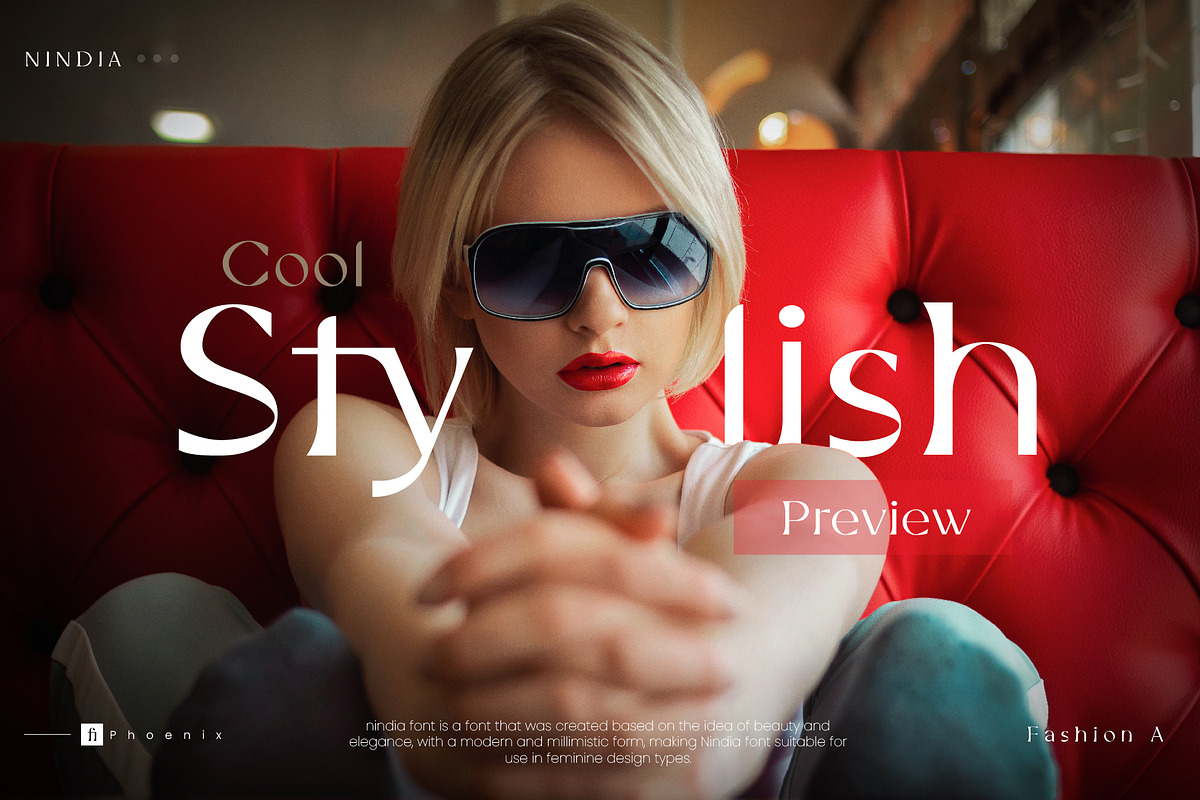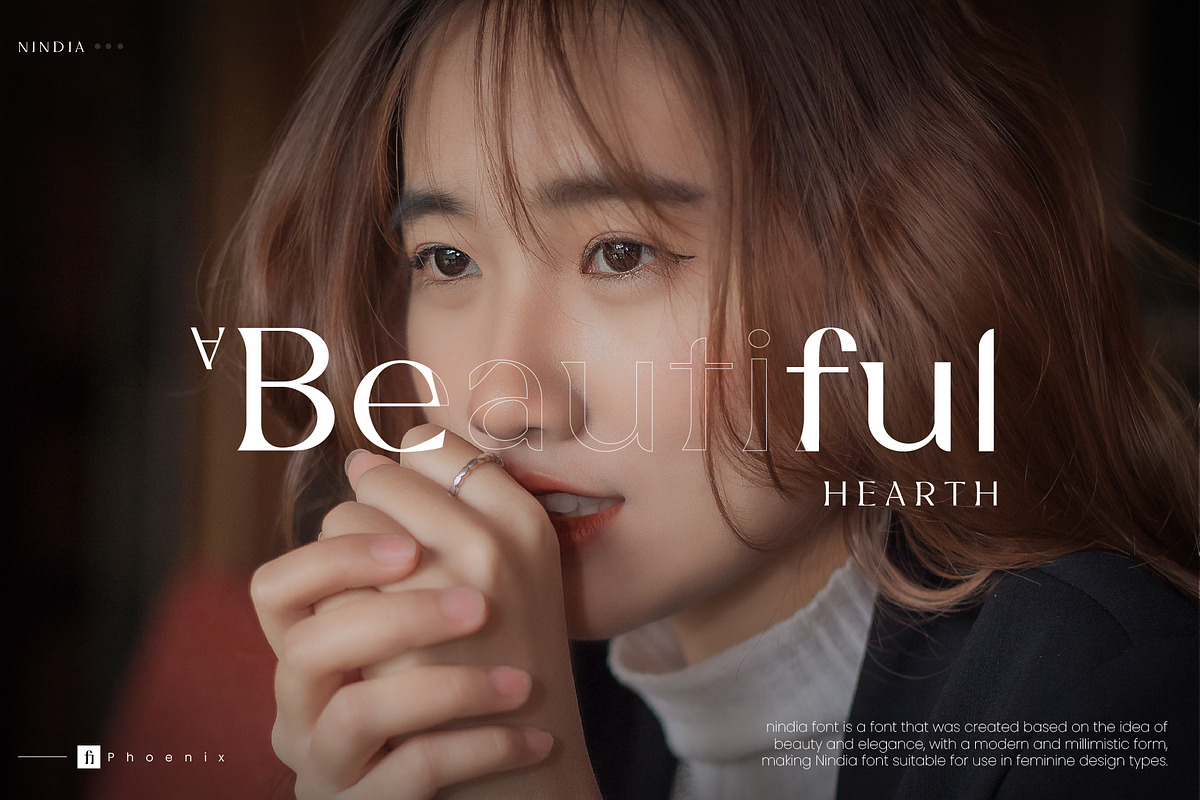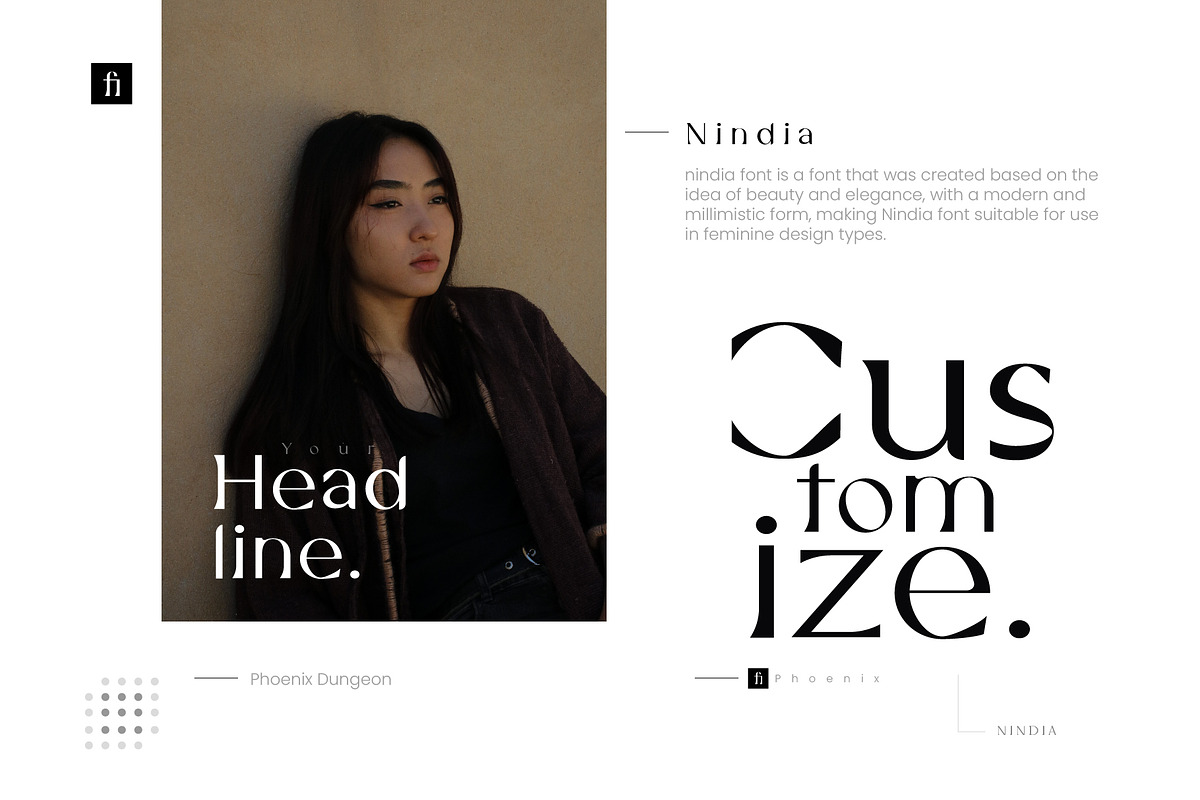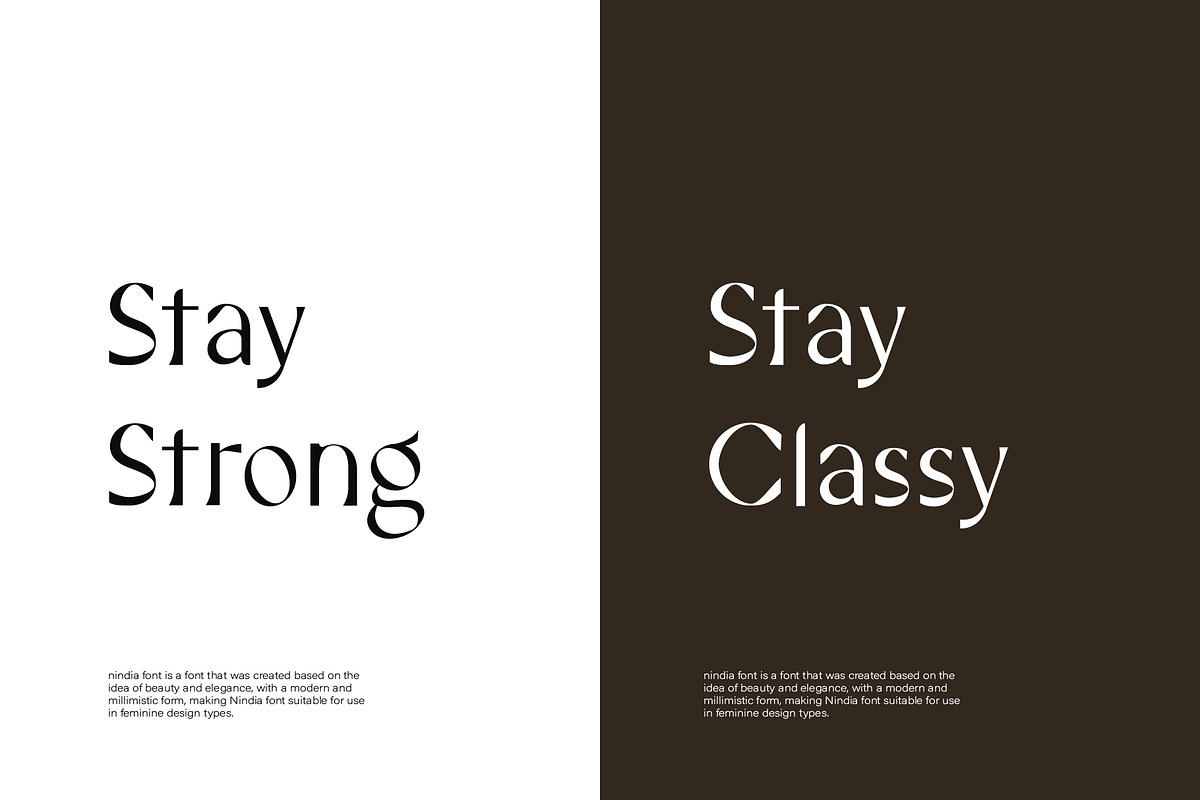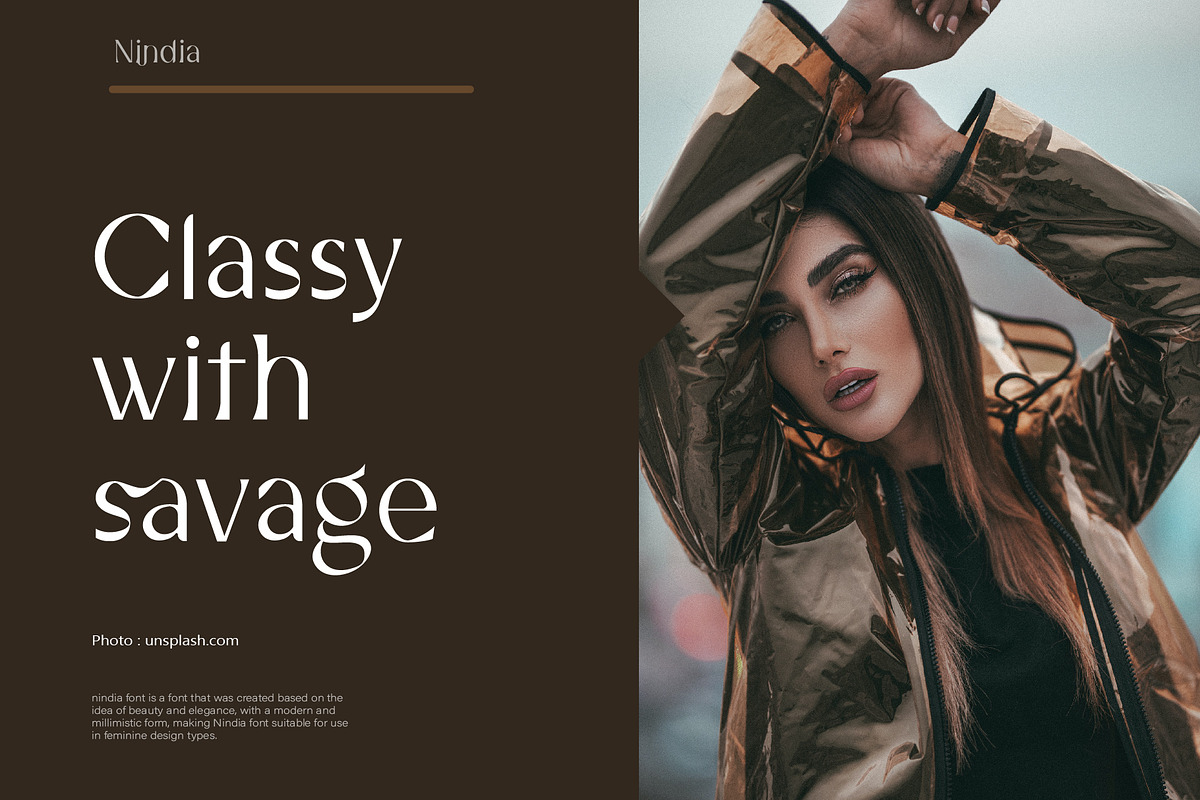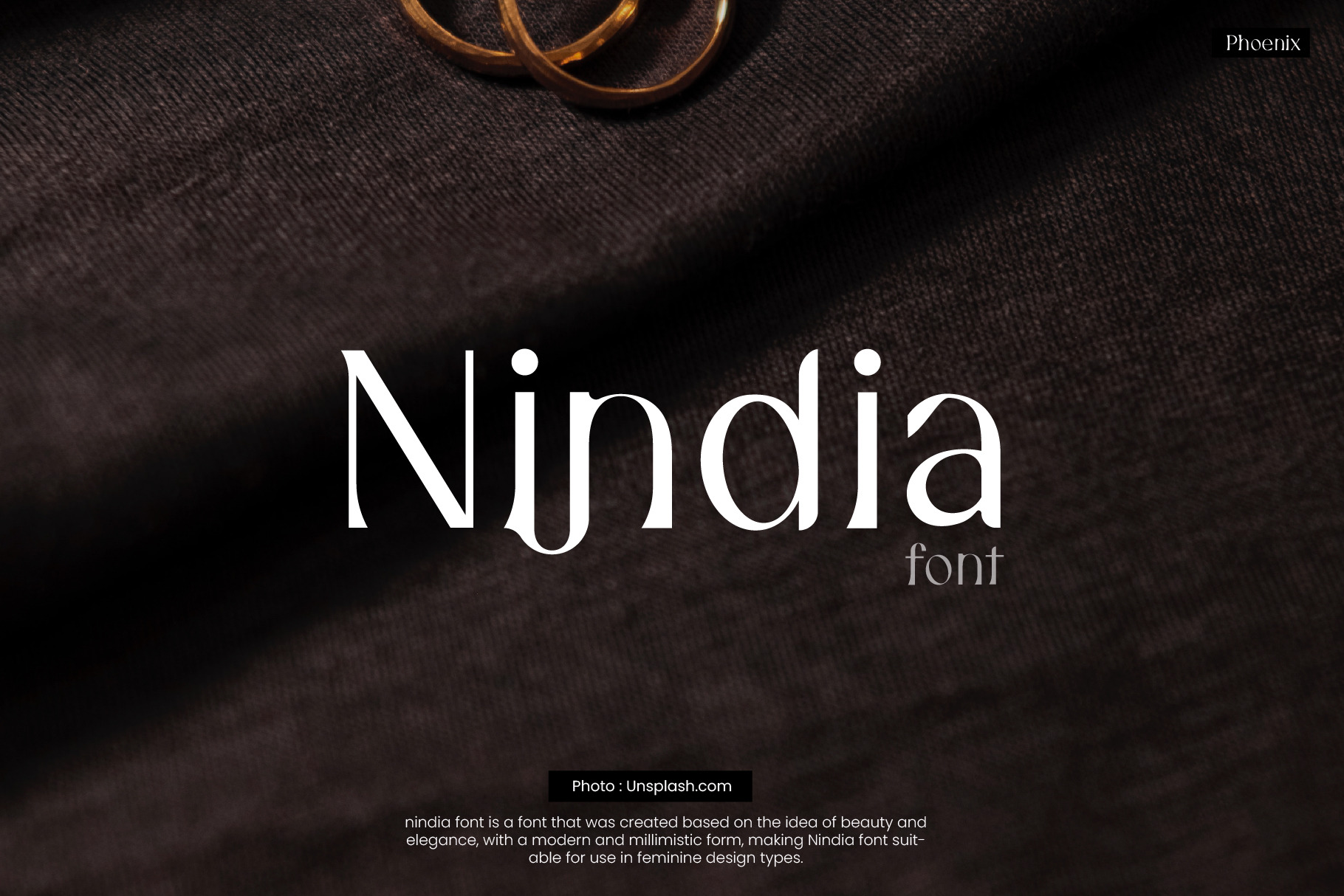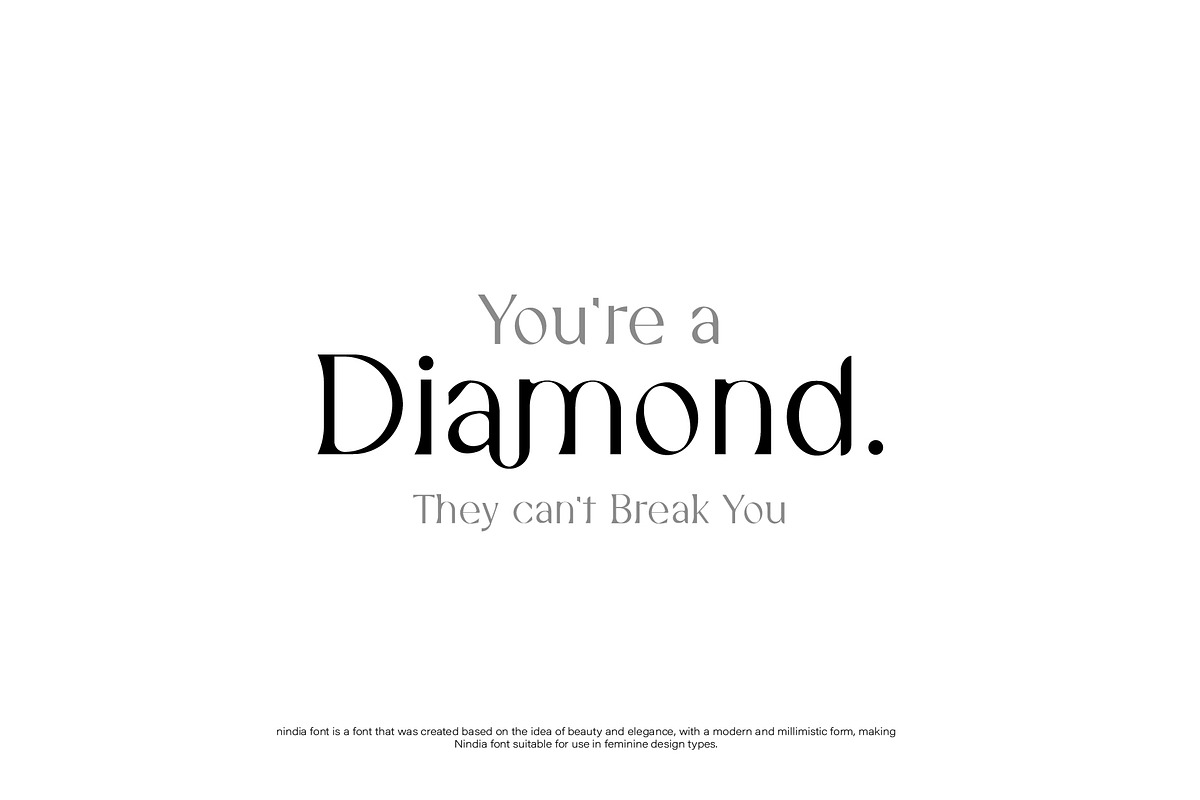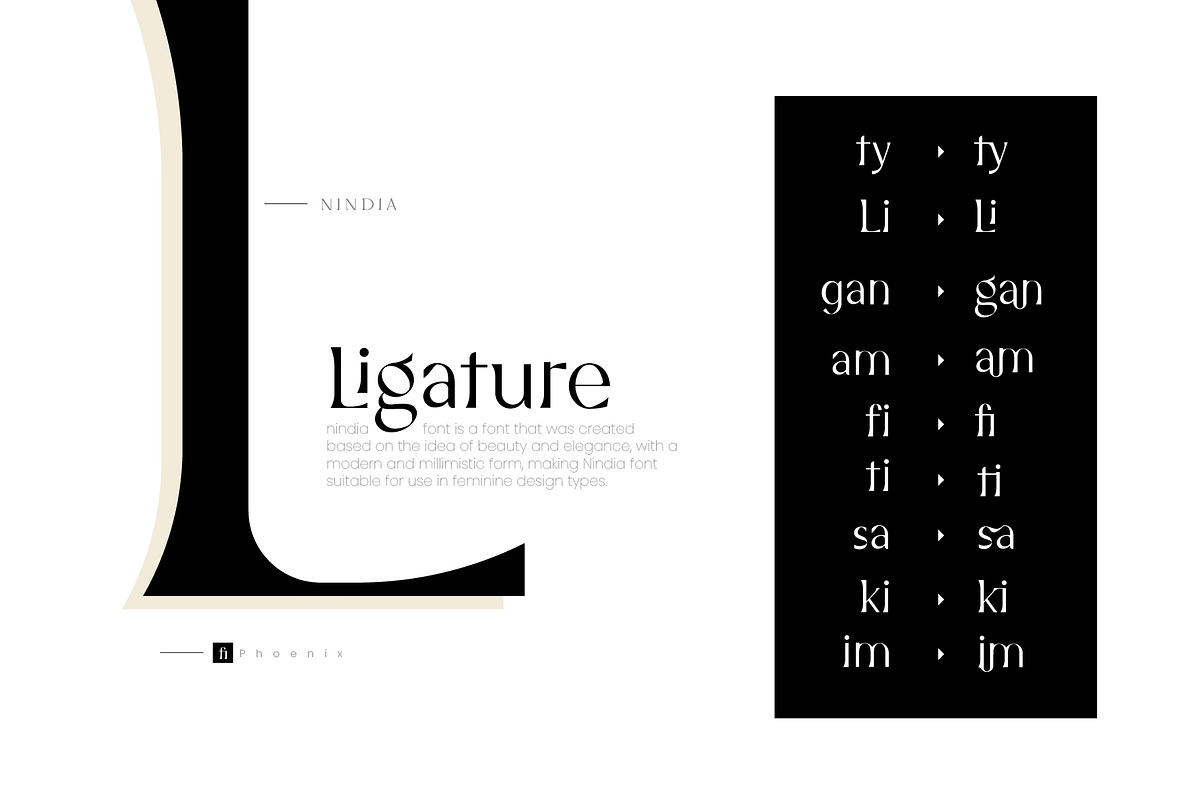
Nindia Font
Nindia font is a font that was created based on the idea of beauty and elegance, with a modern and millimistic form, making Nindia font suitable for use in feminine design types.
This font has what I would call a subtle relaxed elegance to it. Exactly what we were looking for. Thanks Edit up date. After using the font for a while here's some feedback I'd love to get to the team behind this font... The commas.... not enough accent on the tail to differentiate between a full stop/period mark.